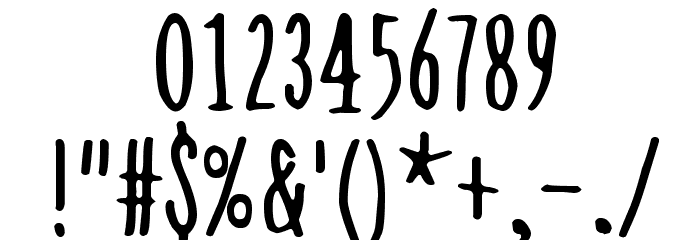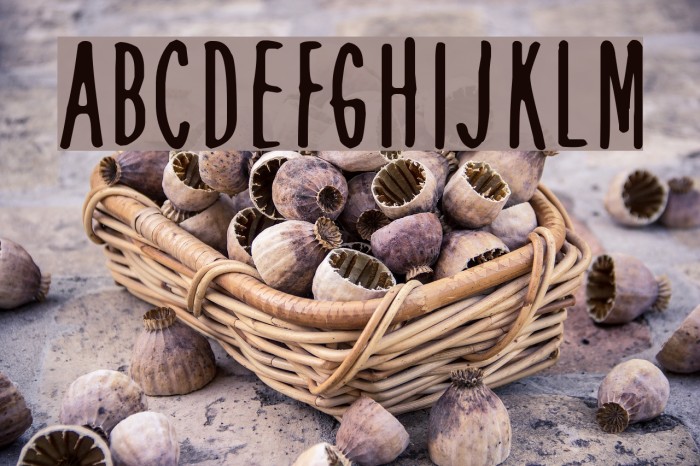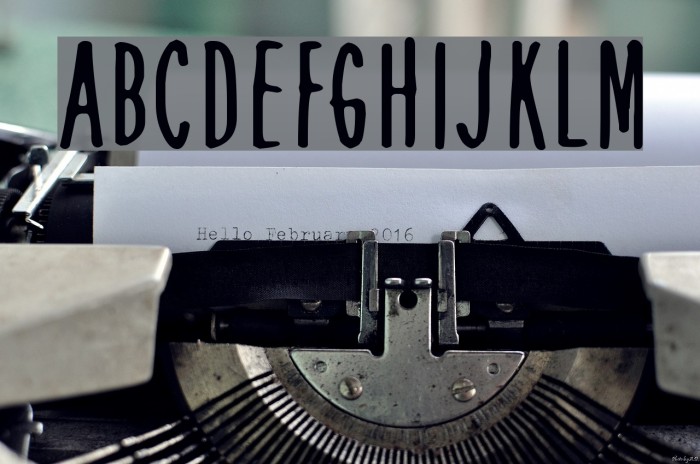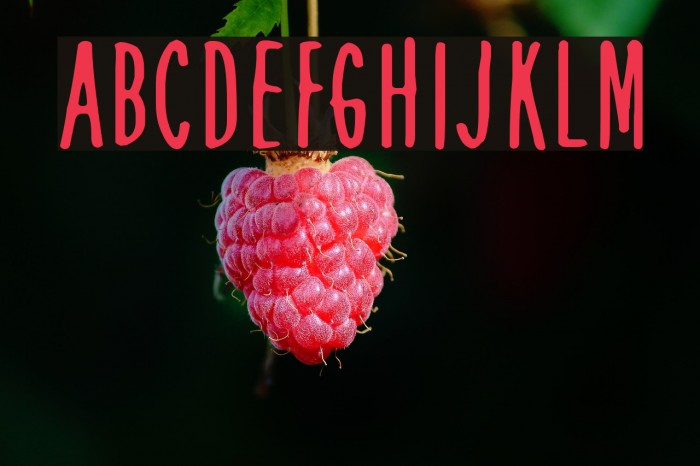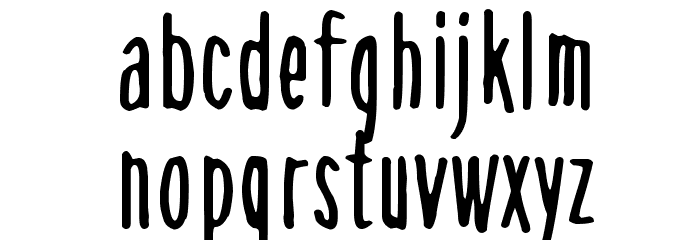
As soon as possible Font
As soon as possible Description
This font features a playful and slightly irregular style, reminiscent of hand-drawn lettering. The characters are tall and narrow, with a whimsical touch that adds a sense of fun and creativity. The strokes are uneven, giving it a casual and informal appearance. The uppercase and lowercase letters maintain a consistent height, while the numbers and special characters blend seamlessly with the overall design. This font is ideal for projects that require a personal and approachable feel, making it suitable for creative branding, children's books, or artistic posters.
| Proposed Projects | Creative branding, children's books, artistic posters, informal invitations. |